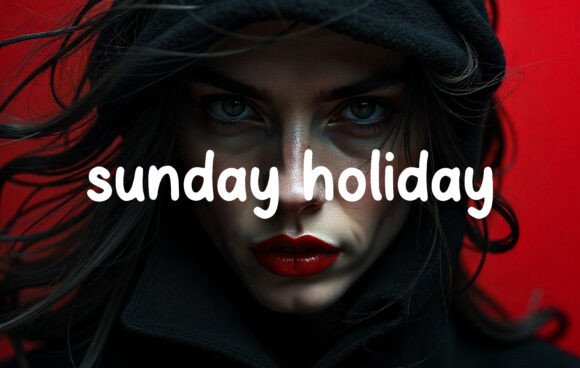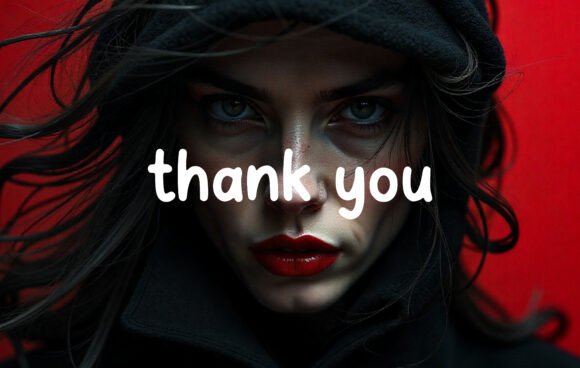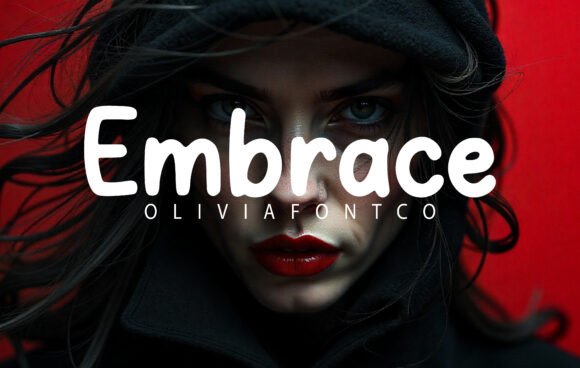
Introducing Embrace Font: The Ultimate Bold Handwritten Script for Modern Designs
In the world of typography, fonts play a crucial role in conveying the tone and personality of a brand or design. If you’re looking for a font that exudes warmth, friendliness, and approachability, look no further than Embrace Font. This beautifully crafted bold handwritten script font is perfect for adding a touch of casual flair and human connection to your designs.
The Characteristics of Embrace Font
Embrace Font boasts thick, rounded strokes and a smooth, organic flow that gives it a distinctly modern feel. Its charming and energetic personality makes it an ideal choice for designers who want to create a lasting impression. The font’s friendly and inviting nature makes it perfect for a wide range of design applications, from social media graphics to product packaging, fun branding, quote art, merchandise, and more.
What Makes Embrace Font Stand Out
So, what sets Embrace Font apart from other fonts in the market? Here are a few key features that make it a standout:
• Bold and Confident: Embrace Font is a bold and confident script font that makes a statement. Its thick strokes and smooth flow give it a sense of authority and personality.
• Warm and Inviting: The font’s rounded strokes and organic flow give it a warm and inviting feel that’s perfect for creating a sense of connection with your audience.
• Modern and Fresh: Embrace Font has a distinctly modern feel that’s perfect for designers who want to create fresh and contemporary designs.
• Versatile: The font is versatile and can be used for a wide range of design applications, from digital designs to print materials.
Design Applications for Embrace Font
Embrace Font is perfect for a wide range of design applications, including:
• Social Media Graphics: Use Embrace Font to create eye-catching social media graphics that showcase your brand’s personality.
• Product Packaging: Add a touch of warmth and friendliness to your product packaging with Embrace Font.
• Fun Branding: Use Embrace Font to create fun and playful branding materials that showcase your brand’s personality.
• Quote Art: Create inspiring quote art with Embrace Font that motivates and inspires your audience.
• Merchandise: Use Embrace Font to create eye-catching merchandise that showcases your brand’s personality.
Tips for Using Embrace Font
Here are a few tips for using Embrace Font in your designs:
• Pair it with a Simple Font: Pair Embrace Font with a simple font to create contrast and visual interest.
• Use it for Headlines: Use Embrace Font for headlines and titles to create a bold and confident statement.
• Experiment with Colors: Experiment with different colors to find the perfect combination that showcases your brand’s personality.
In conclusion, Embrace Font is a wonderfully warm and inviting bold handwritten script font that’s perfect for designers who want to add a touch of casual flair and human connection to their designs. Its thick, rounded strokes and smooth, organic flow give it a charming, approachable, and distinctly modern feel. With its friendly and energetic personality, Embrace Font is perfect for a wide range of design applications. So, why wait? Download Embrace Font today and start creating stunning designs that showcase your brand’s personality!